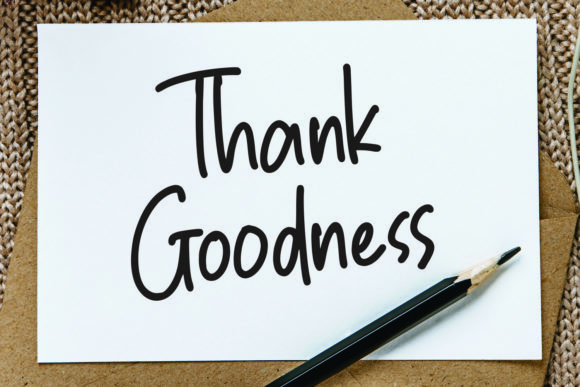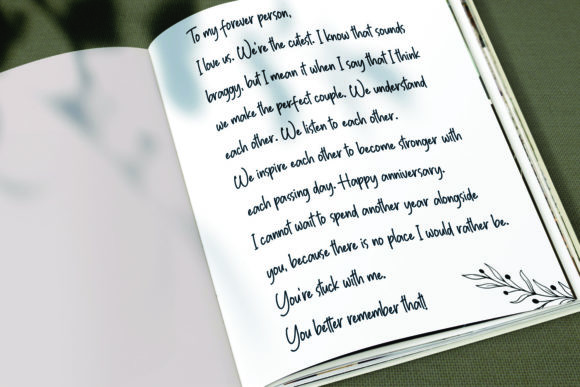
About Rainbow Paper Font
Rainbow Paper is a stylish, cute, friendly and genuine handwritten font. Whether you use it for cartoon related designs, children games or just any creation that requires a lovely touch, this font will be an amazing choice.